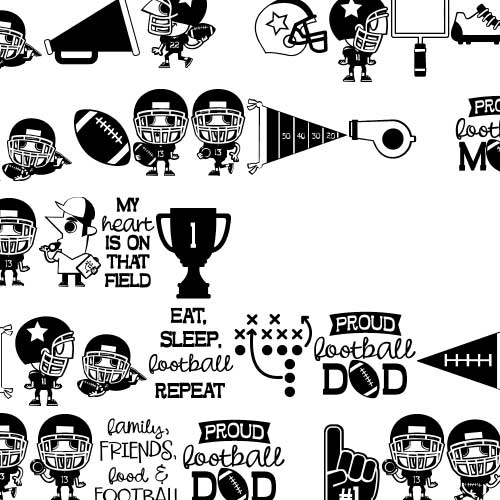
DB Unstoppable - Football - DB
This adorable doodlebat features 26 football players and football themed images. Perfect for your athlete, scrap book pages, card making, gifts, decor, planner stickers and more!